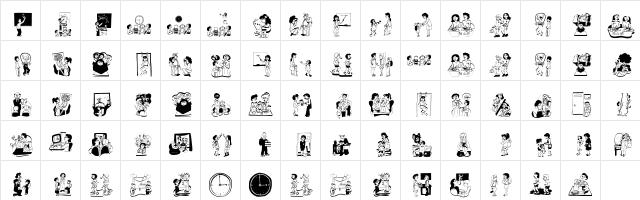
SchoolTime Regular
Design Context for SchoolTime Typeface
SchoolTime is a composed and adaptable typeface that performs quietly and consistently across a wide range of design contexts.